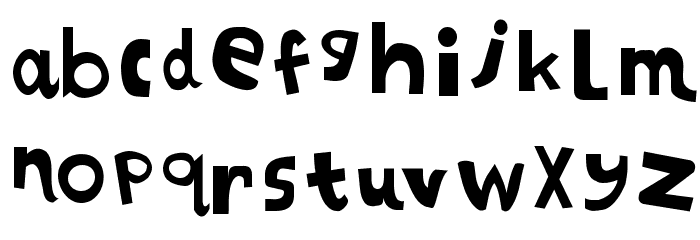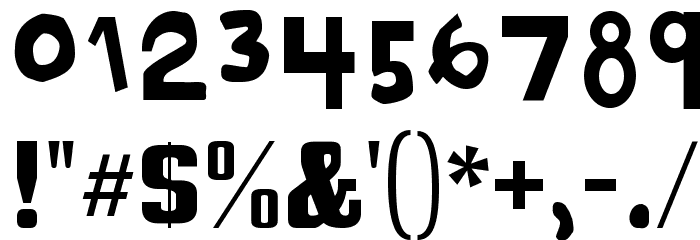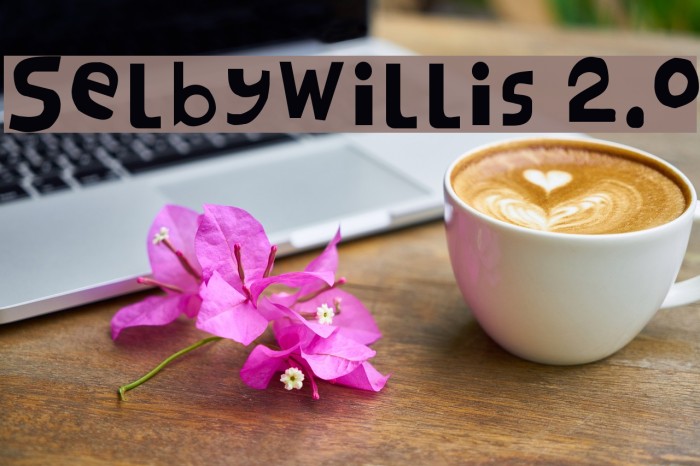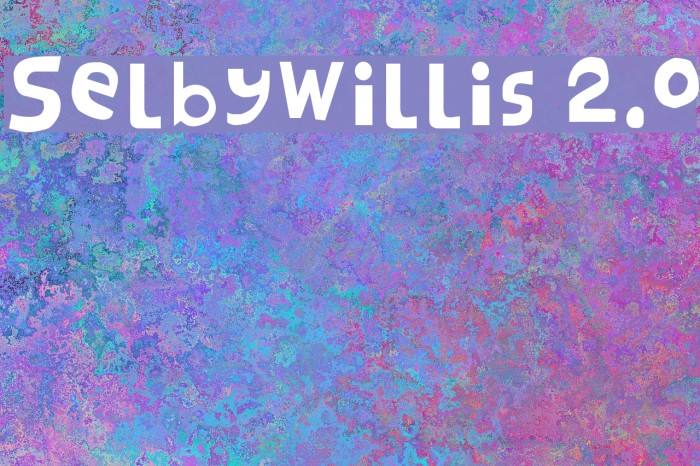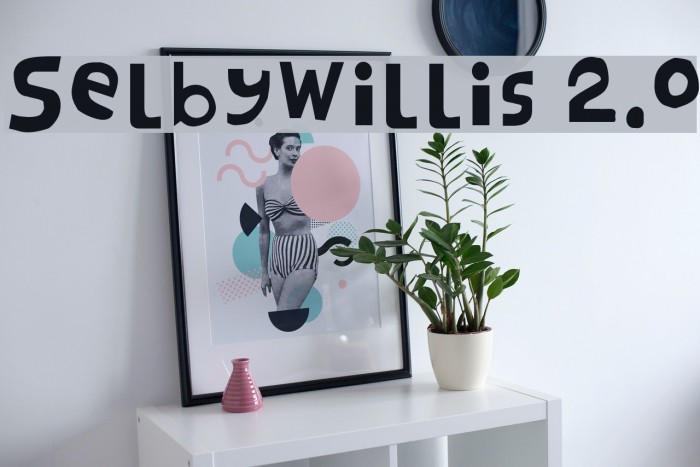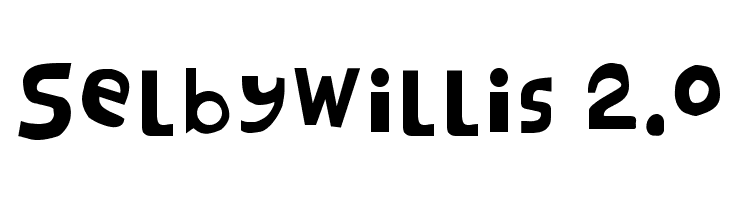
SelbyWillis 2.0 Font
This font features a playful and quirky design, characterized by its bold and irregular shapes. The letters are slightly tilted and vary in width, giving it a dynamic and energetic feel. The uppercase and lowercase letters maintain a consistent style, with rounded edges and a hand-drawn appearance. The numbers and special characters follow the same whimsical aesthetic, making it suitable for creative and informal projects. The font's unique style is eye-catching and adds a fun element to any design.
A playful, bold font with a hand-drawn, quirky style.
- Proposed Projects: Ideal for children's books, playful branding, party invitations, and creative posters.
- Overall Style: Playful, Quirky, Hand-drawn